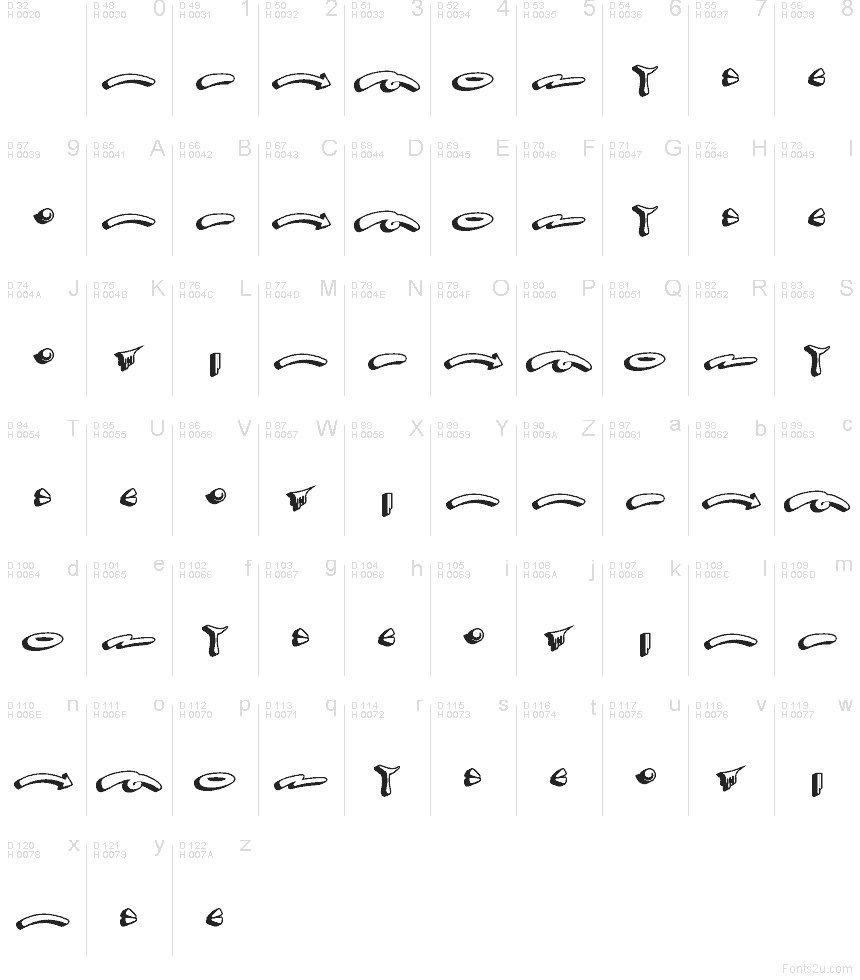
Hard Zone - Shadow -Swash
Hard Zone - Shadow - Swash font by Saepul milah of CikareotypeStudio x FigureeStudio is a free graffiti font, and its standout move is that chunky shadow-and-swash energy that feels like paint pushed hard across a wall. The forms are blobby and elastic, with thick inky masses and stretched strokes that drip into motion, giving every word a bold, street-level rhythm without needing extra effects.
Using Hard Zone - Shadow -Swash, you’ll get instant attitude on music posters, skate and streetwear graphics, album art, YouTube thumbnails, event flyers, sticker packs, and punchy logo concepts. This free font also shines on short headlines where the shadowy weight can breathe—try it large with generous spacing. Pair it with a clean geometric sans for the small stuff so the graffiti typeface gets to do the talking.